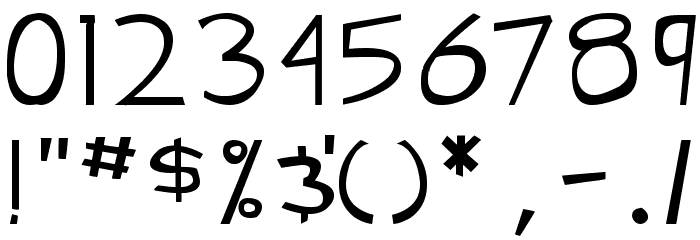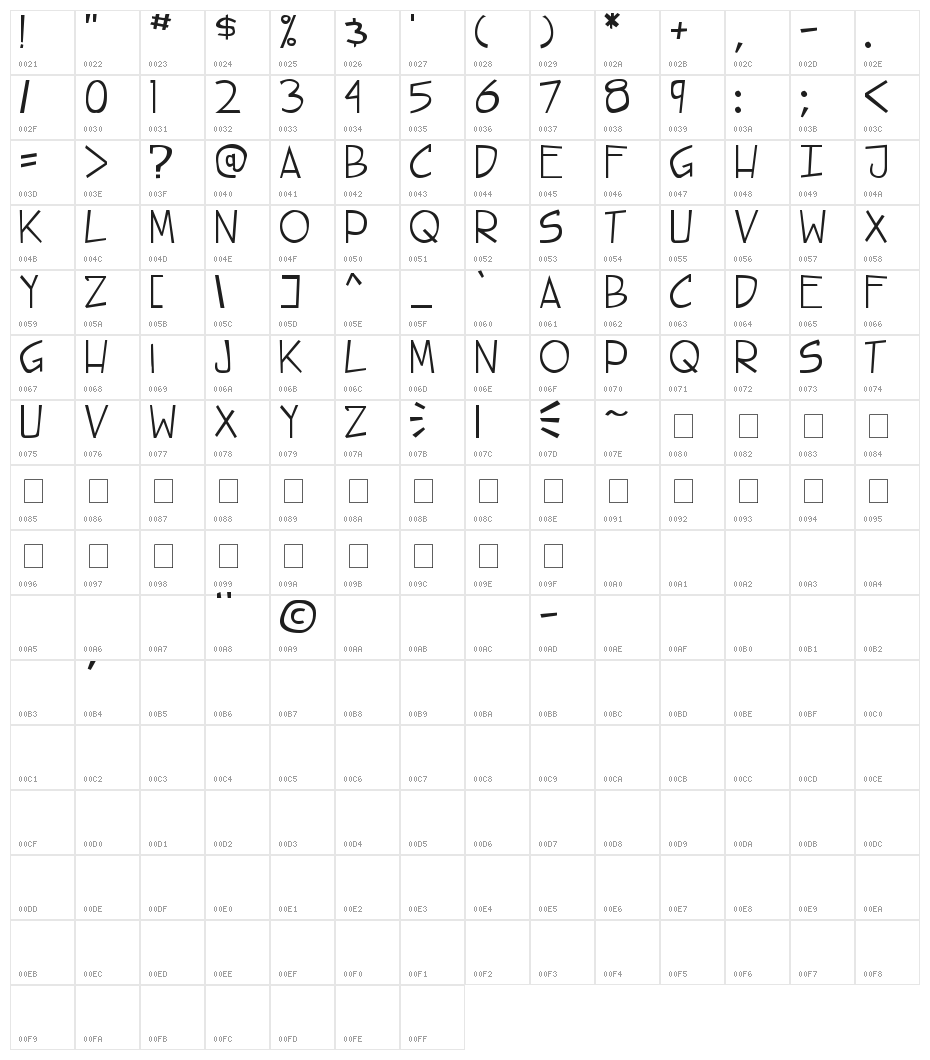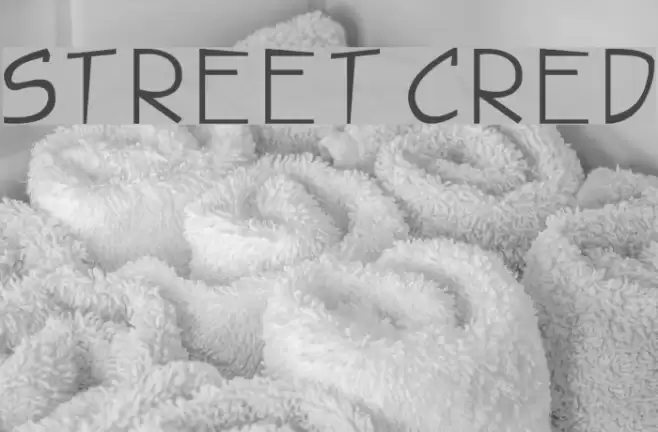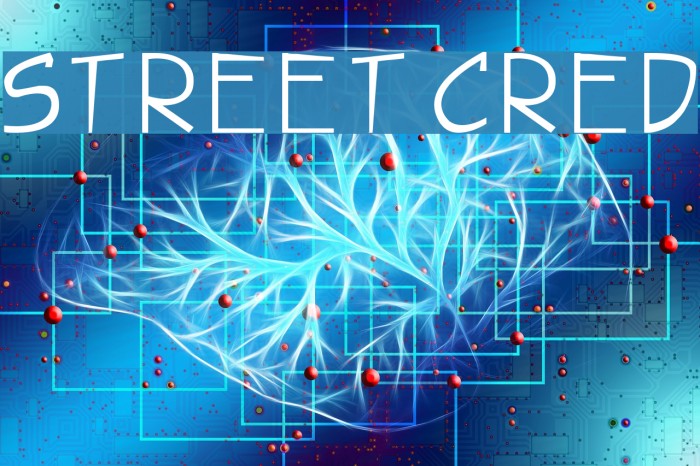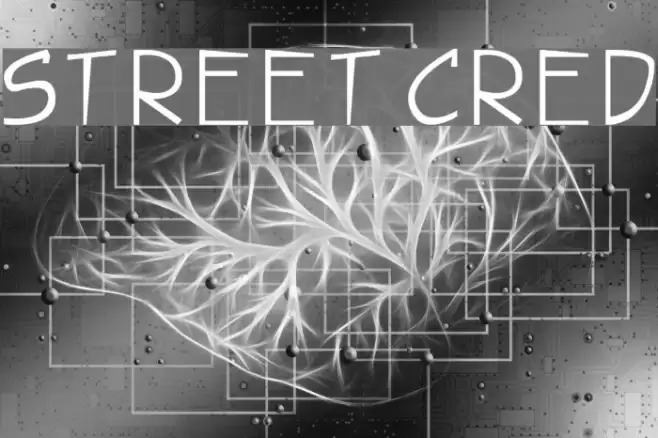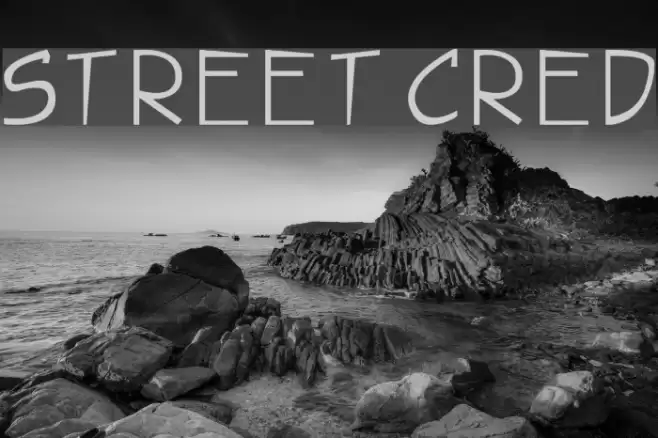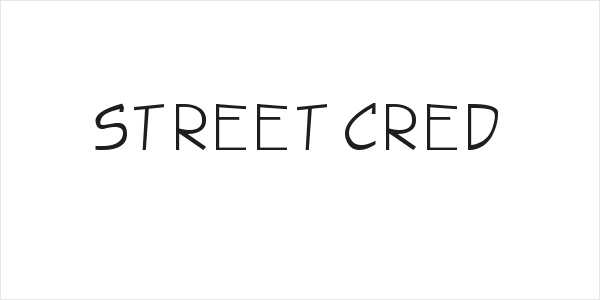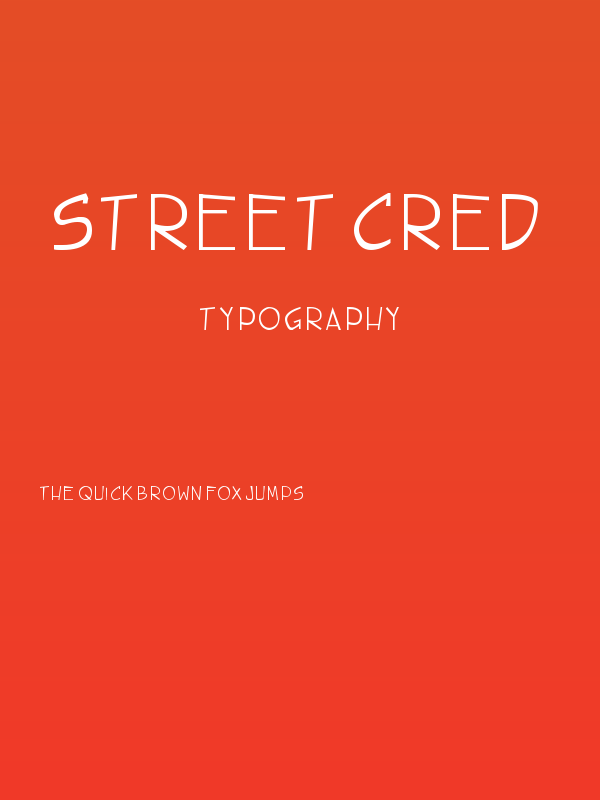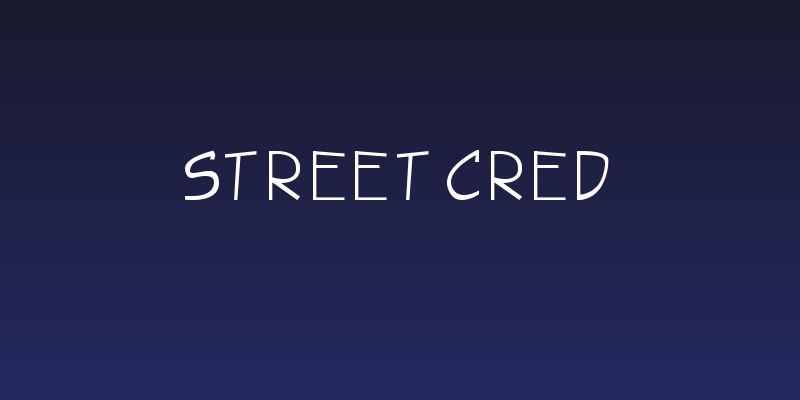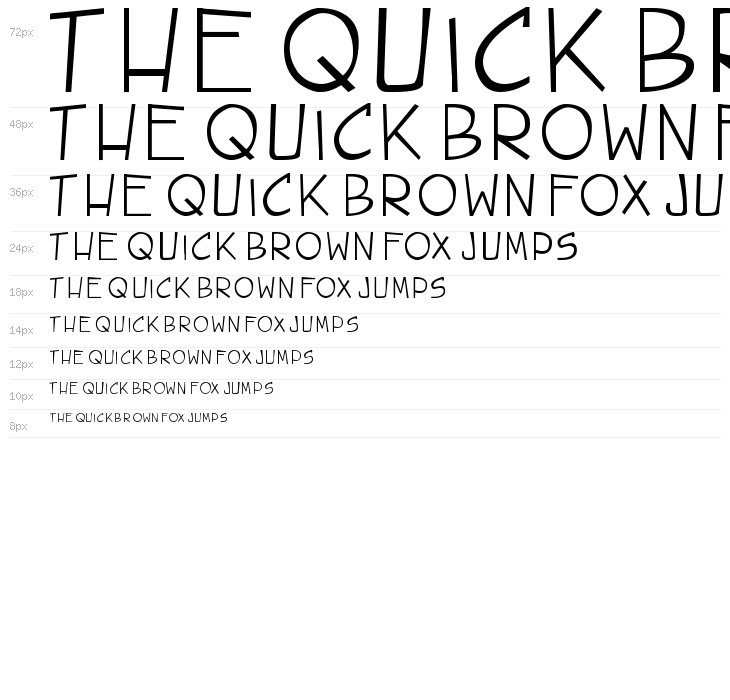
street cred Font
street cred Description
This font features a playful and informal style, characterized by its uneven, hand-drawn appearance. The letters have a slightly tilted and whimsical look, giving them a dynamic and energetic feel. The strokes are consistent in width, providing a uniform appearance despite the quirky angles. The numerals and special characters maintain the same lively aesthetic, making the font suitable for creative and casual applications. Its unique style adds a touch of personality and charm, making it stand out in any design project.
| Proposed Projects | Ideal for children's books, comic strips, casual branding, and playful event invitations. |